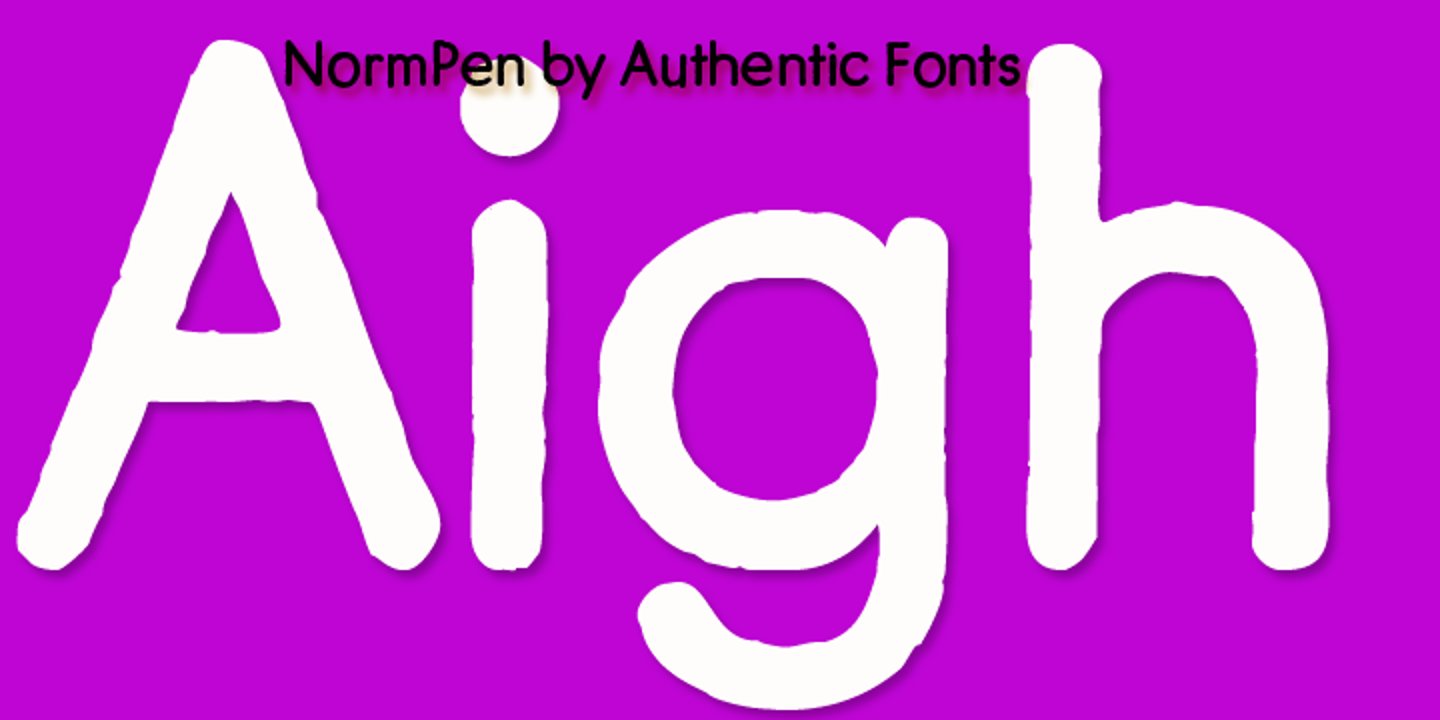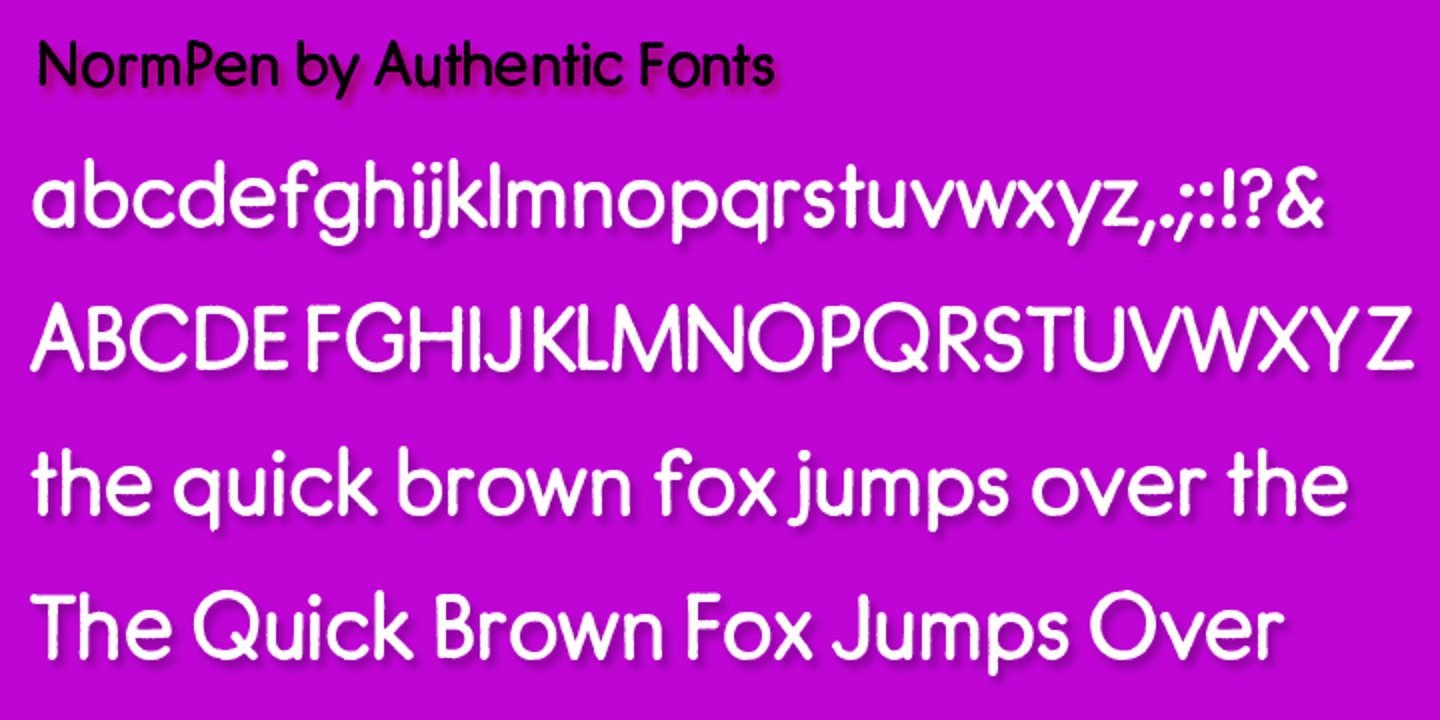
NormPen is based on an ancestor of the German DIN-Schrift. The font was traced with a plastic template on transparent paper, scanned and worked over carefully to keep the handmade, authentic touch.